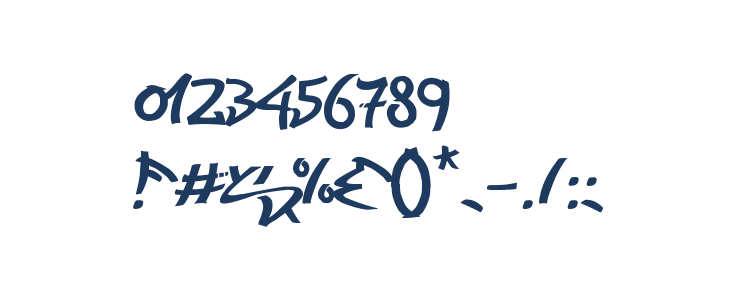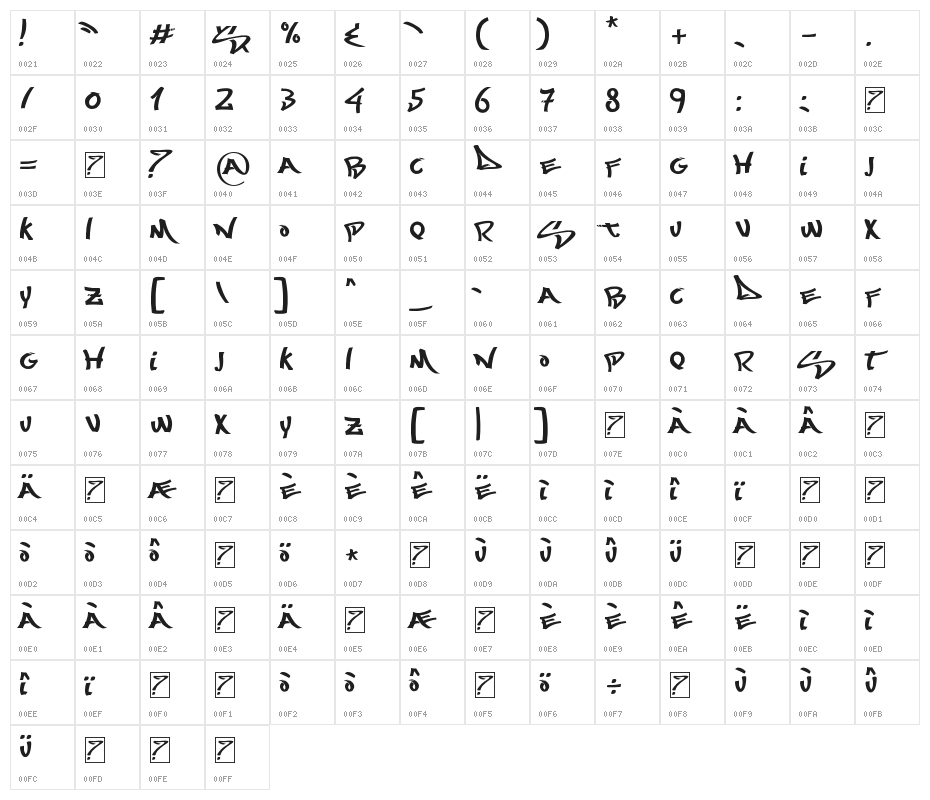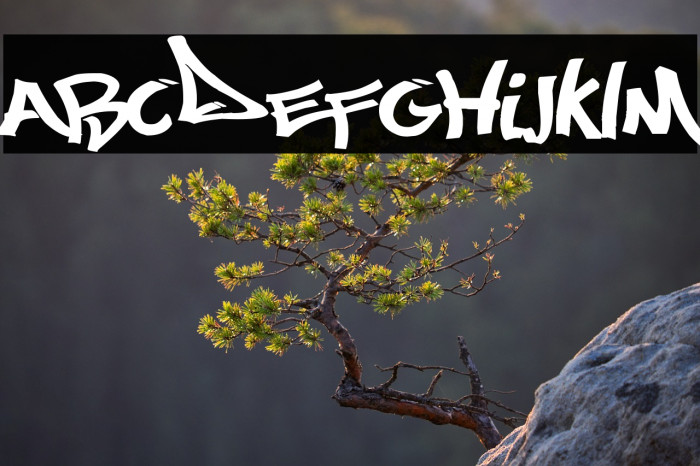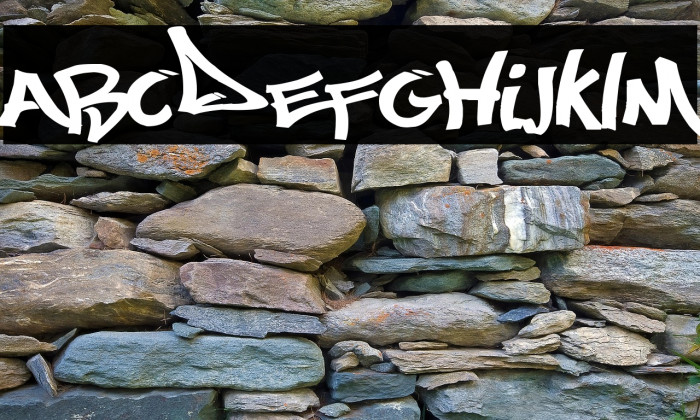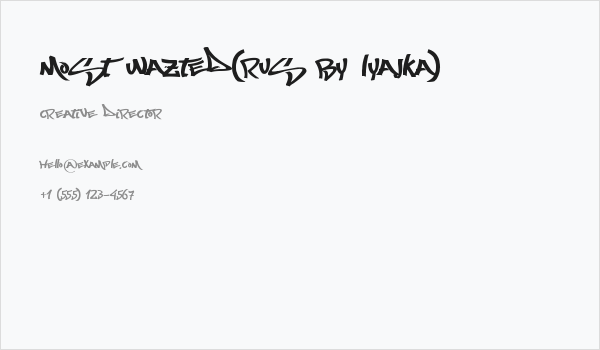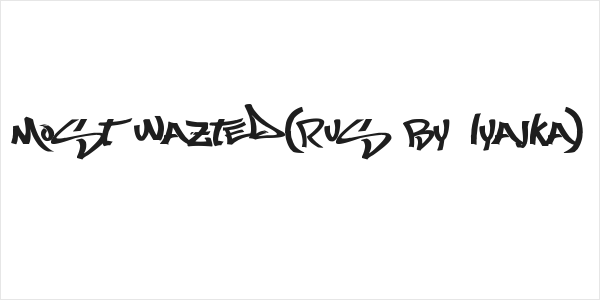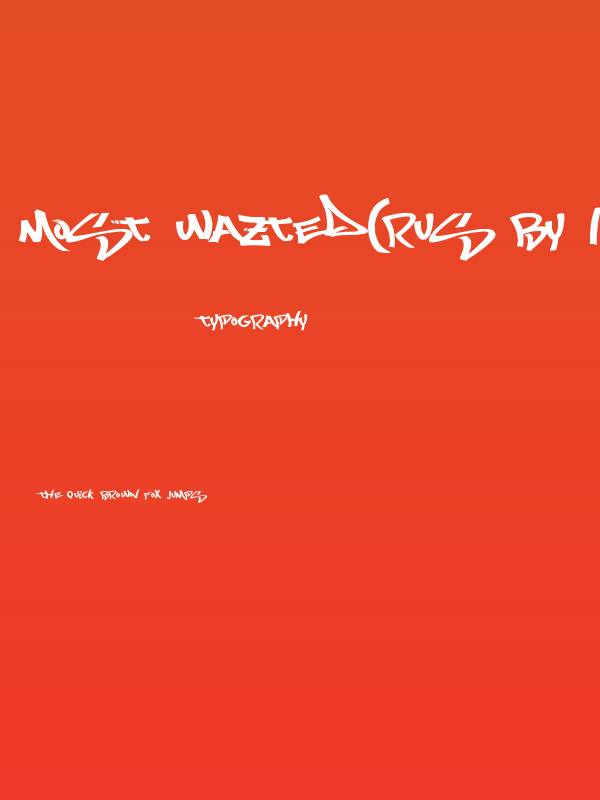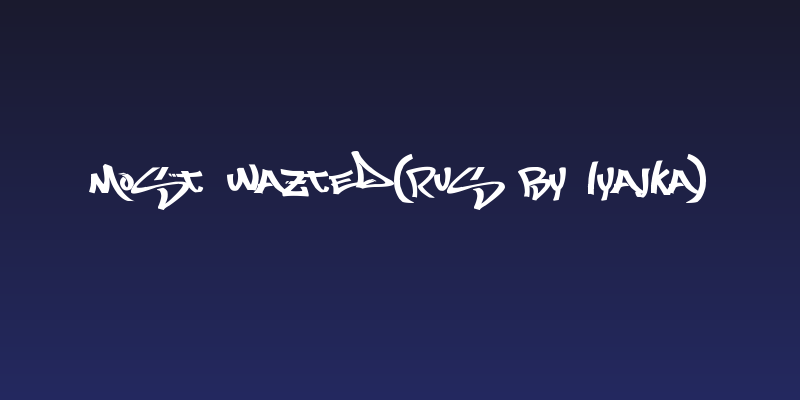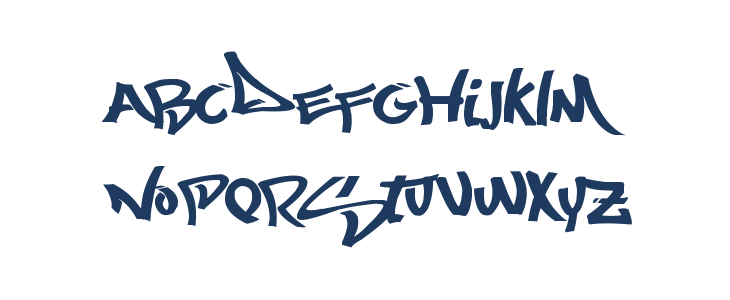
Most Wazted(RUS BY LYAJKA) Font
Most Wazted(RUS BY LYAJKA) Description
This font exudes a bold, urban graffiti style with its dynamic and energetic letterforms. The characters are highly stylized, featuring sharp angles and exaggerated curves that create a sense of movement and rebellion. The uppercase and lowercase letters maintain a consistent aesthetic, while the numbers and special characters blend seamlessly into the overall design. The font's edgy appearance makes it ideal for projects that require a strong, impactful visual statement. Its unique style captures the essence of street art, making it perfect for designs that aim to convey creativity and non-conformity.
Overall StyleUrban, Graffiti, Edgy